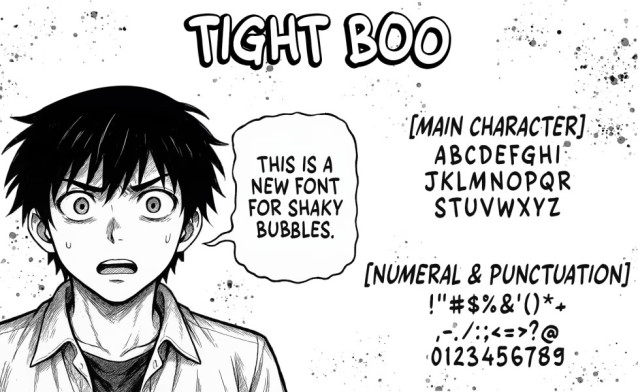
Tight Boo Font
Tight Boo Font was created especially for manga and comics, bringing a shaky, emotional style ideal for representing crying, nervous, or fragile dialogue. Its irregular strokes convey intensity and enhance the expressiveness of each scene. Perfect for bringing delicate, emotion-filled moments to life.